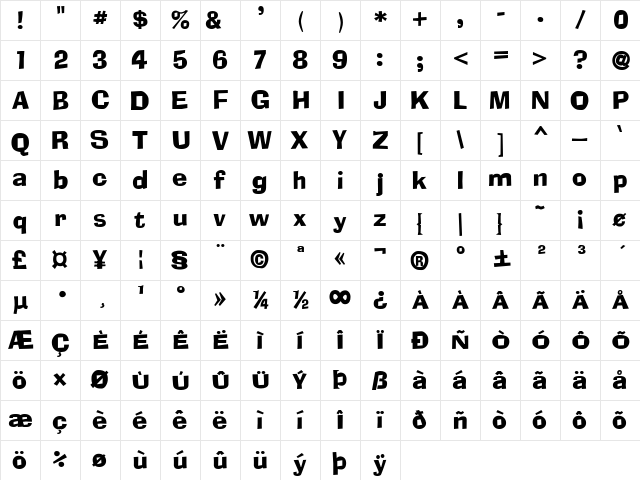
W3DRFont Regular
Design Context for W3DRFont Typeface
W3DRFont takes a measured approach to typography — its balanced proportions and neutral character make it a reliable workhorse for both digital and print work.